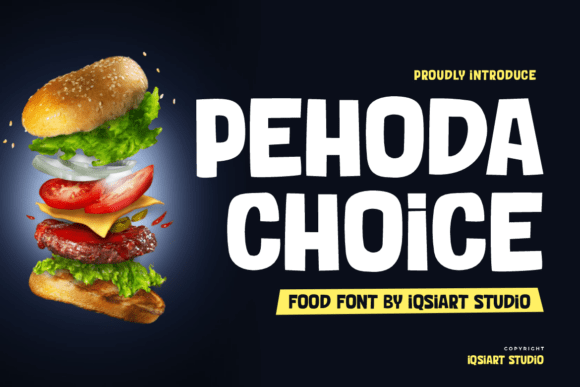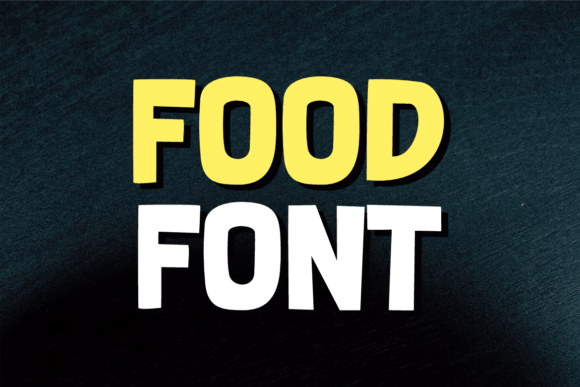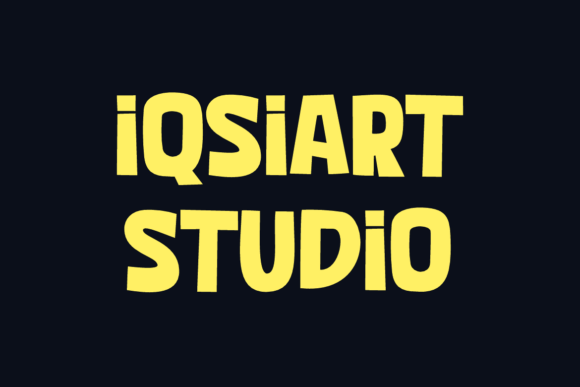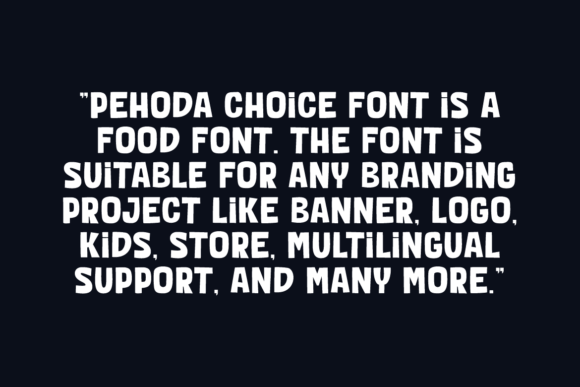
Pehoda Choice Font
About the Pehoda Choice Font
The Pehoda Choice Font offers a perfect balance of form and function for your design needs. Pehoda Choice is a sweet and friendly sans serif font. Its natural and unique style makes it incredibly fitting to a large pool of designs. The only limit is your imagination!
Pehoda Choice thrives in display applications such as headlines, logos, and short-form text on posters or packaging. Its friendly, approachable nature makes it ideal for brands targeting a younger demographic or conveying a sense of warmth and approachability. Avoid using it for large blocks of body text or UI elements; its unique forms might hinder readability in extended passages.
Pairing Pehoda Choice with a clean, geometric sans-serif like Futura or a classic serif like Garamond creates a balanced and sophisticated aesthetic. For a more playful feel, consider pairing it with a handwritten script font, but ensure legibility remains a priority. The overall personality of Pehoda Choice is best described as friendly and approachable, with a touch of quirky charm.
Overusing Pehoda Choice can lead to visual clutter, so use it sparingly to accentuate key elements within a design. Remember to always prioritize legibility and consider the overall message your design seeks to communicate.
Pehoda Choice Font Usage Examples
Pehoda Choice Font Example